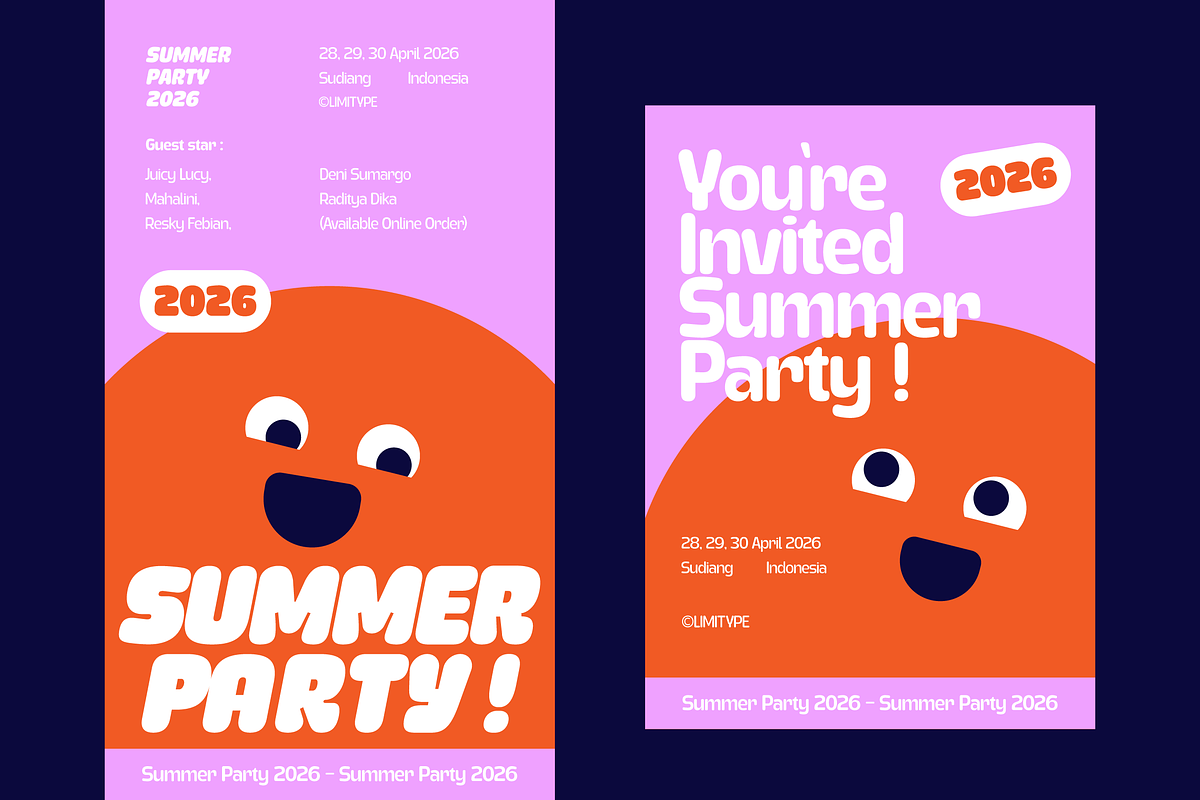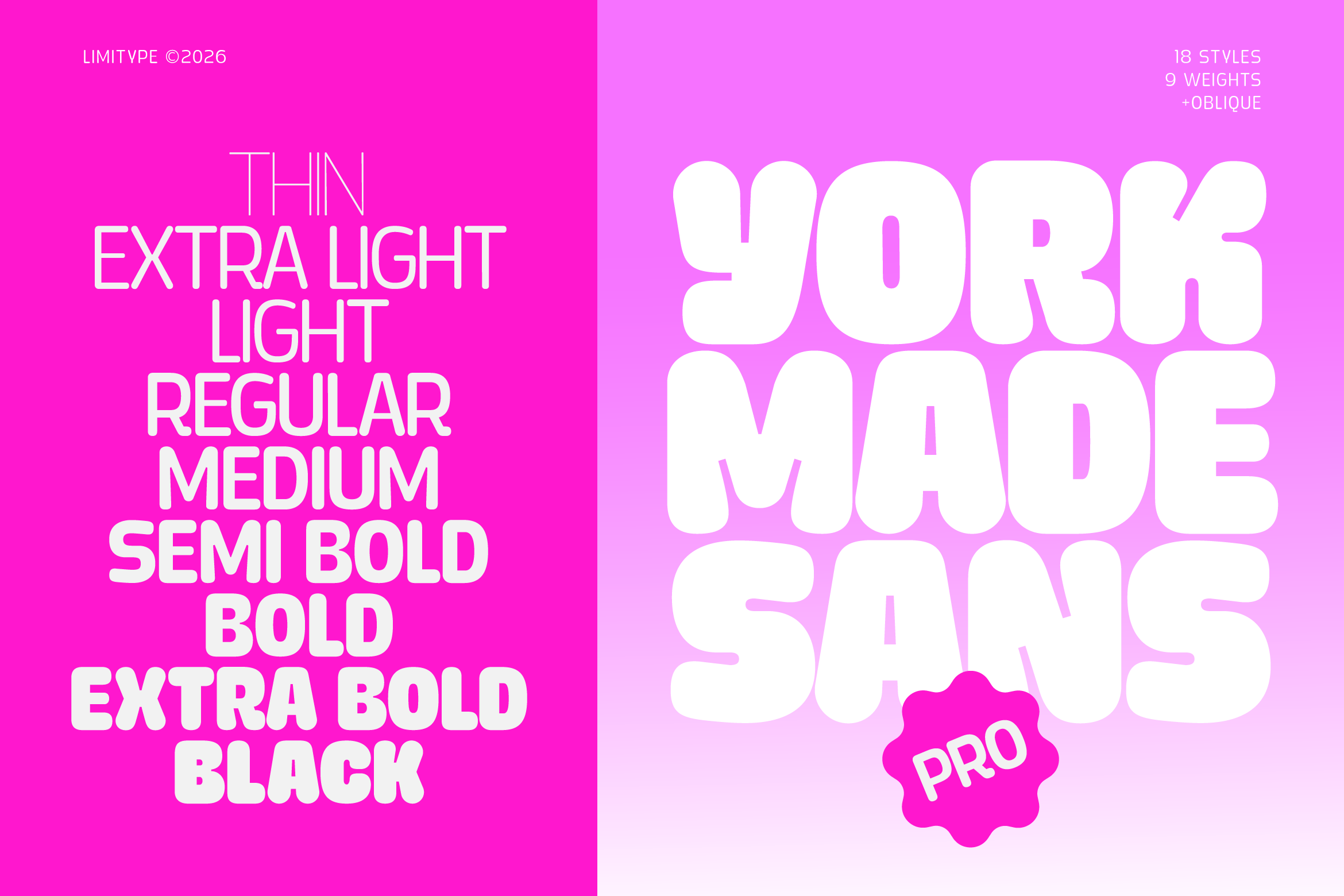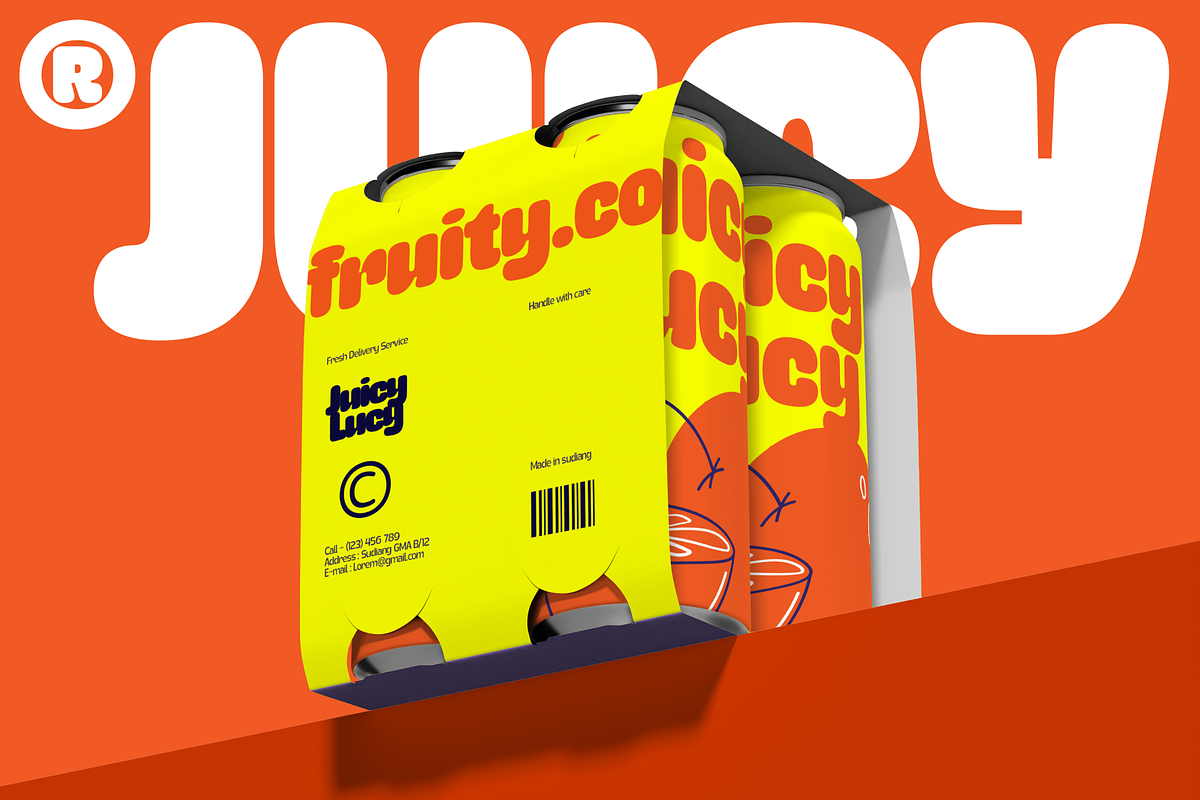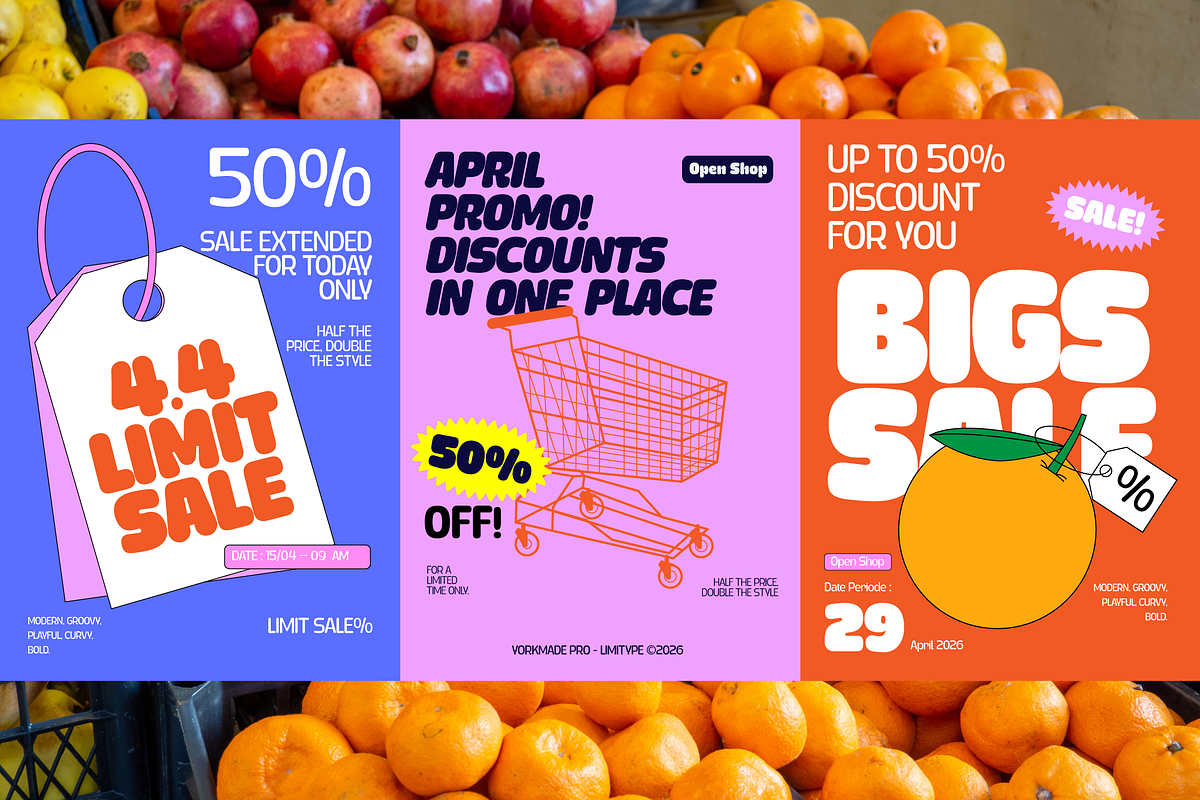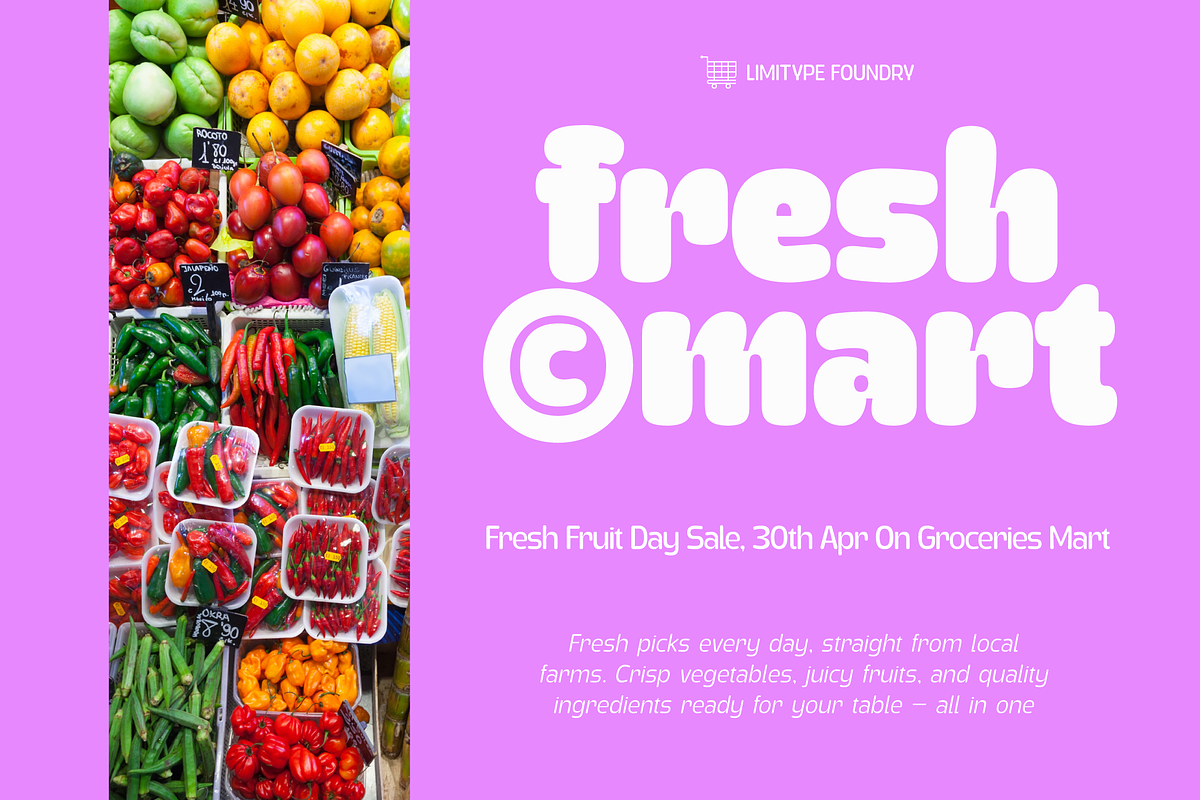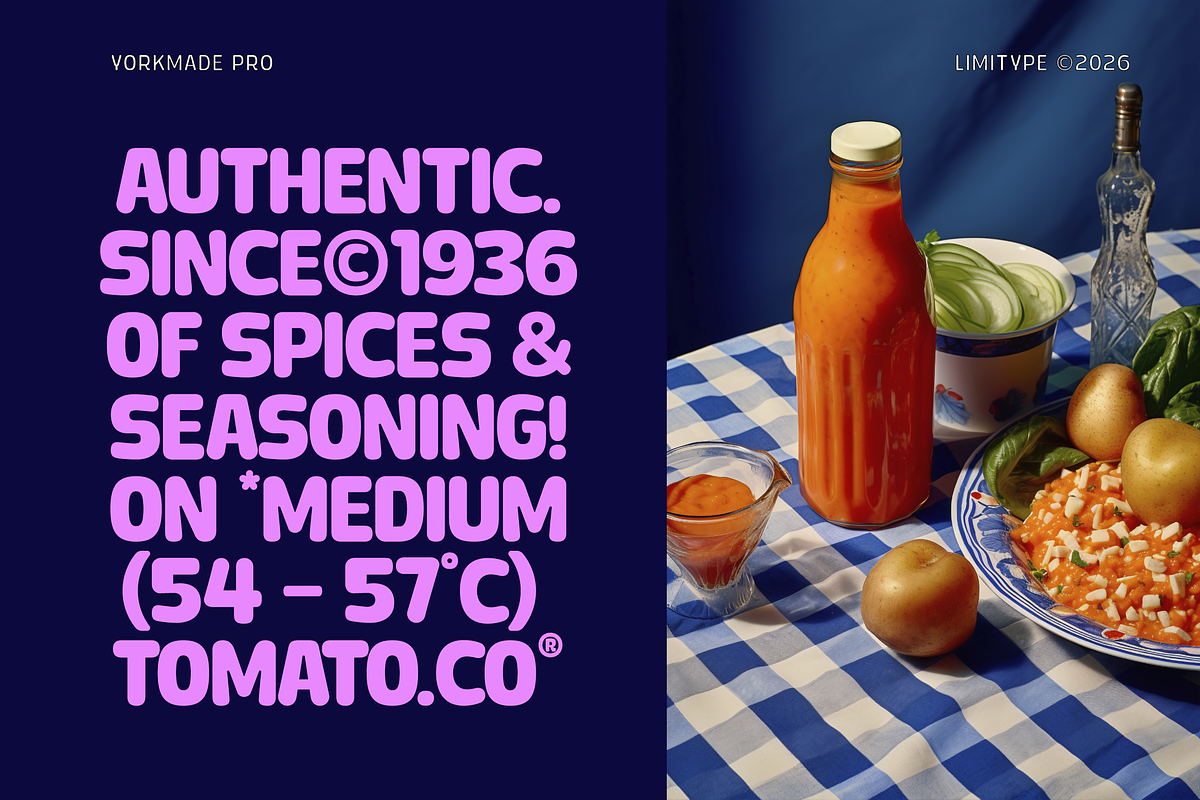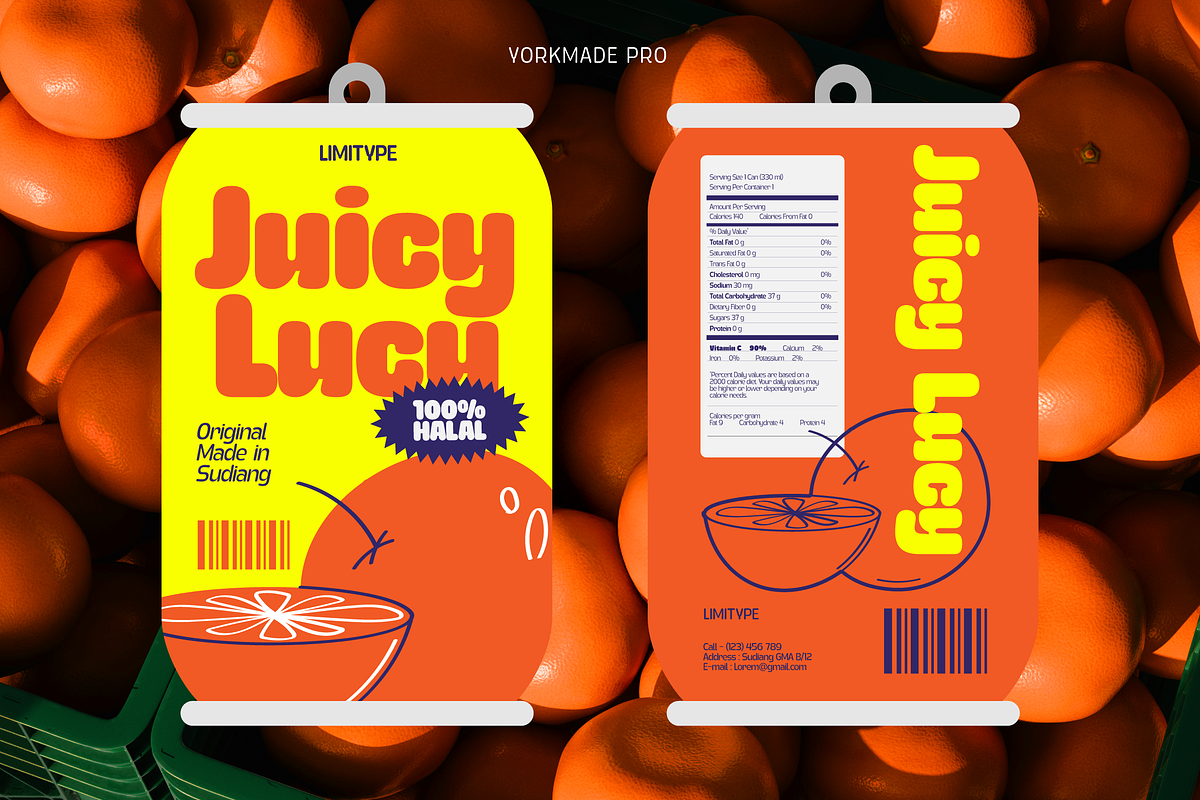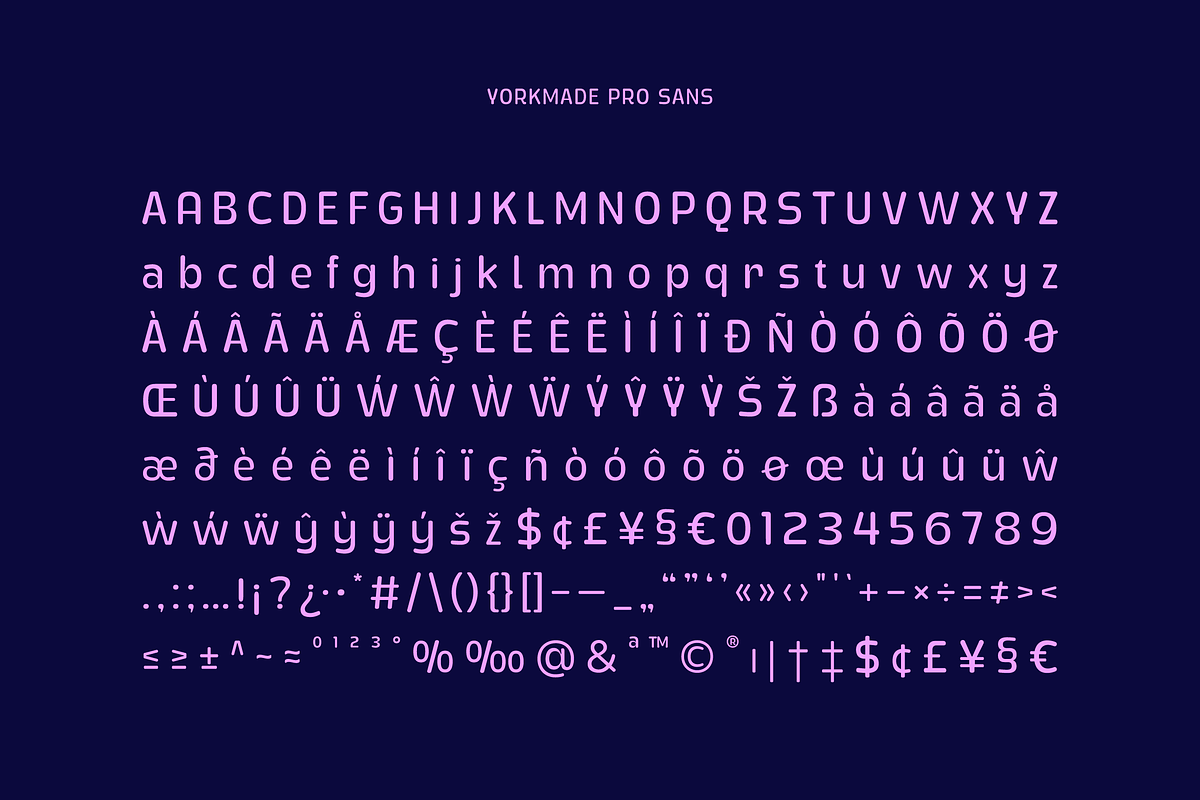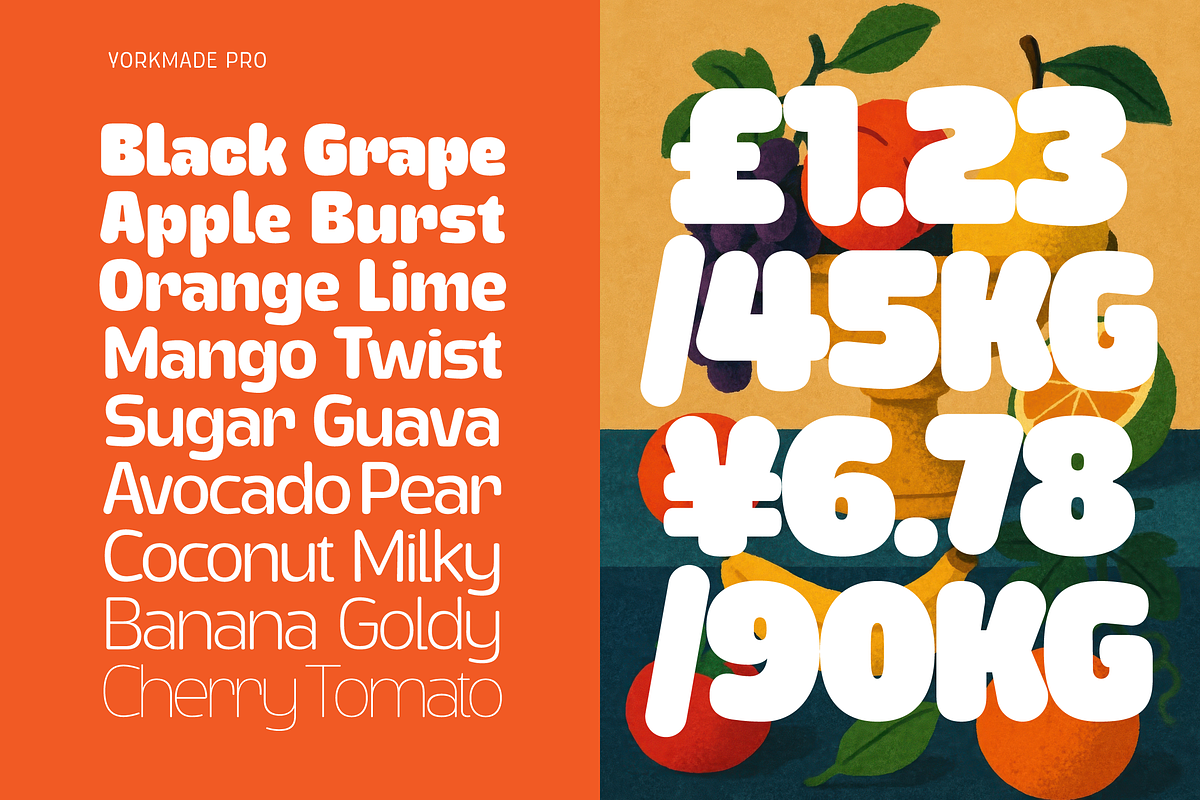
Yorkmade Pro - Sans Serif Font
This is the pro version of the previous font, Yorkmade standard, featuring an updated family that is more versatile and enriched with additional glyph characters. Yorkmade Pro is suitable for display needs or designs that require large text, and it can also serve as body text.
Yorkmade Pro available with:
- Number & Symbols
- Basic & Oblique
- 18 Font